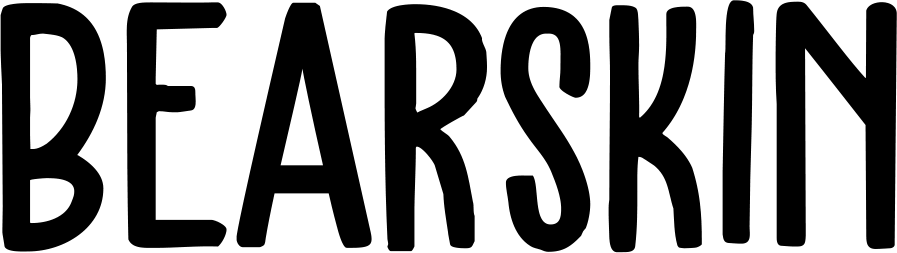
Bearskin Font
Bearskin is another font from the cartoon category. Its cute and playful look makes it a really good choice for different purposes like animations and cartoons, kids’ books, and so on. If you download this handwritten font then you should know that you won’t find all the characters and it doesn’t contain the lower case of the alphabet.